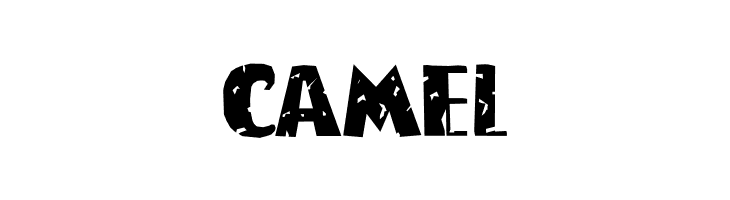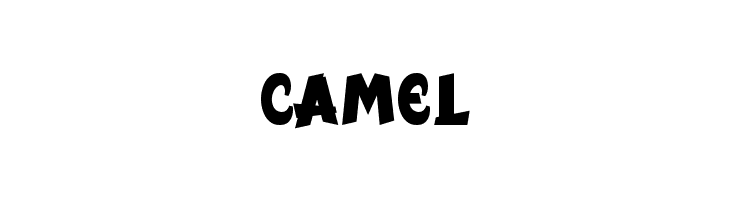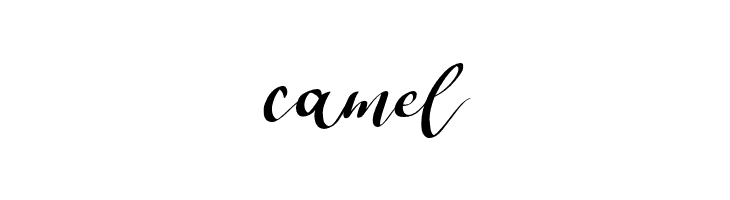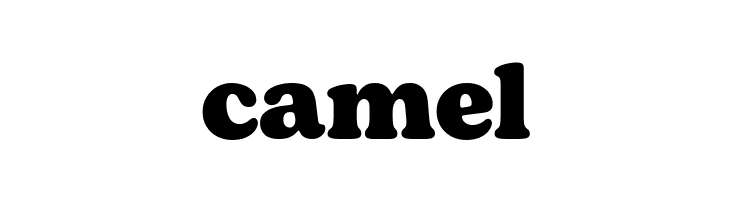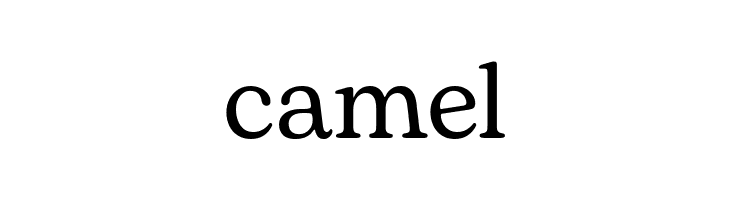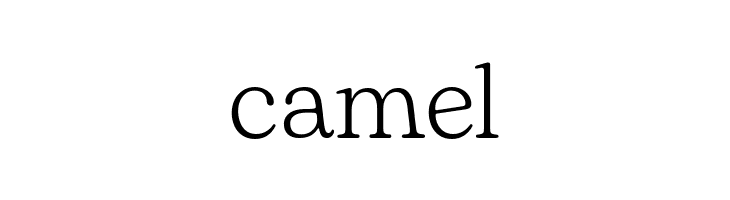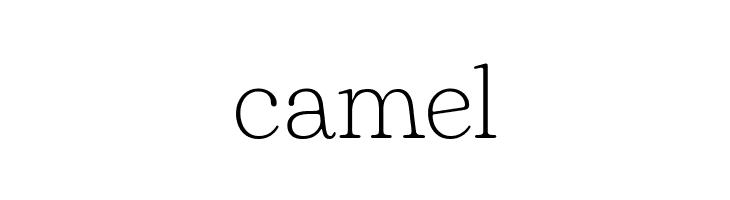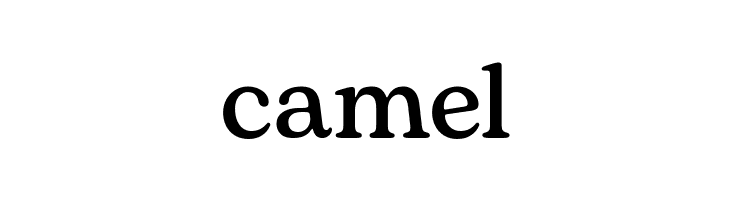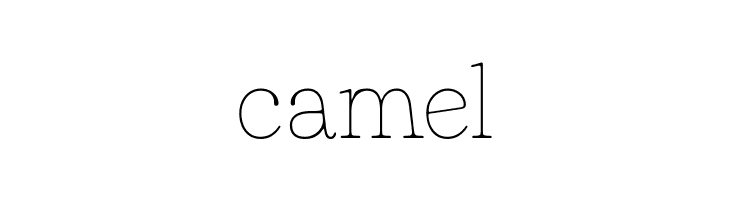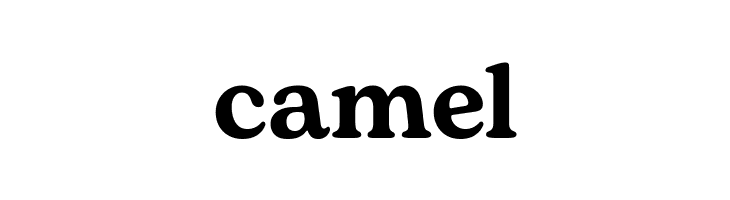
A bold, rounded serif font with a vintage yet modern appeal.
A refined, elegant font with thin strokes and high contrast, perfect for sophisticated designs.
A classic serif font with elegant, refined letterforms and a light weight.
A classic serif font with medium weight and elegant design.
A classic serif font with elegant curves and a timeless appearance.
A bold, serif font with a classic and elegant style.
A thin, elegant font with refined strokes and a sophisticated appearance.
A dynamic and elegant script font with fluid, cursive strokes.
A bold, eroded font with a distressed and whimsical style.
A bold, playful font with exaggerated curves and a whimsical style.